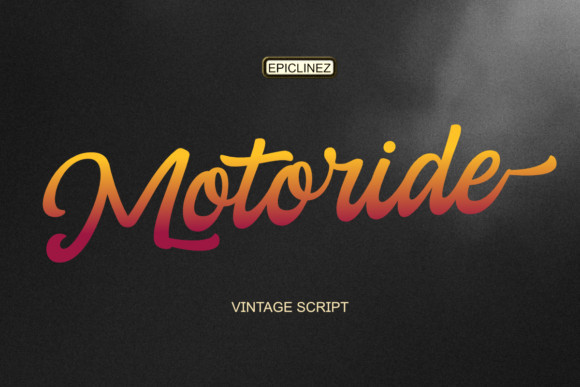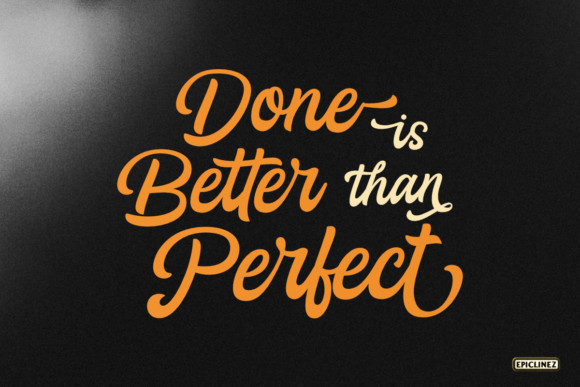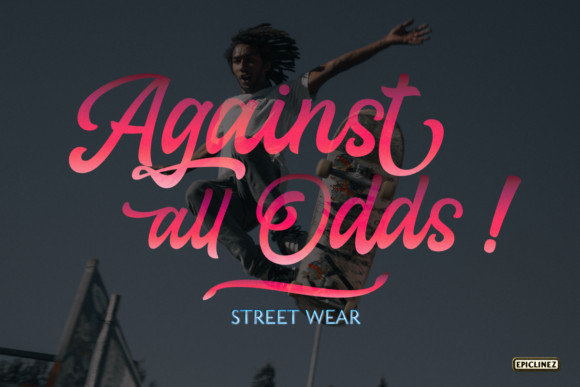
Motoride Font
Motoride feels playfully nostalgic and delivers an incredible vintage aesthetic. Use it to add that special retro touch to any design idea you can think of!